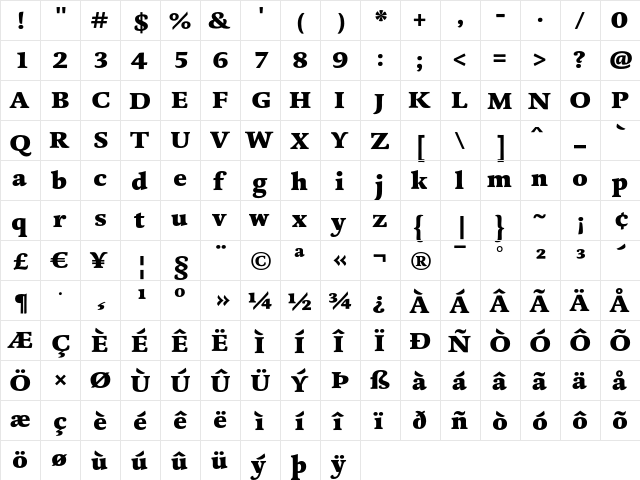
DTLDorianT Heavy Font Preview
DTLDorianT Heavy
Design Context for DTLDorianT Typeface
DTLDorianT offers clean, dependable letterforms without strong stylistic allegiance, making it a practical choice for designers who need flexibility.
Pro Tip: Use DTLDorianT in both headline and body roles to test its range before committing to a single application.